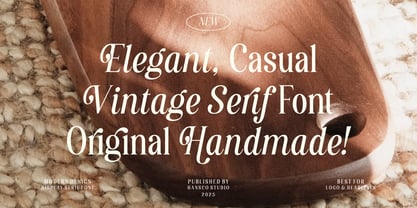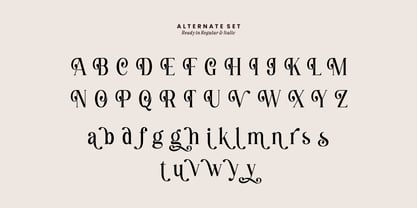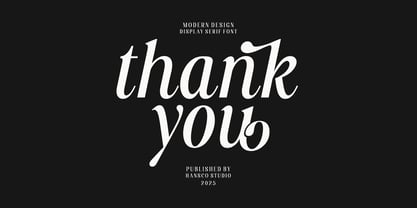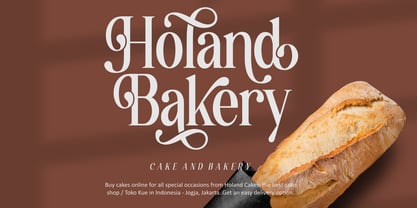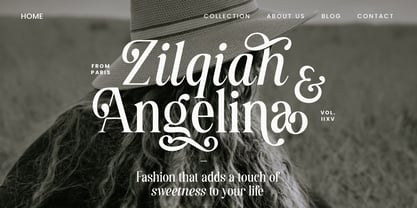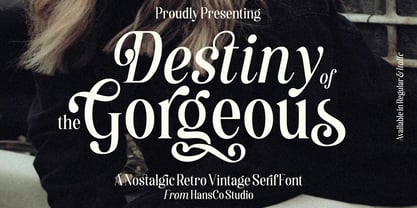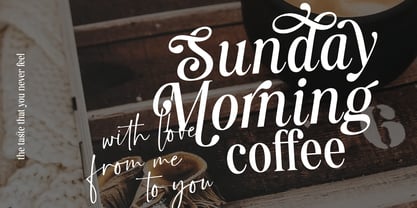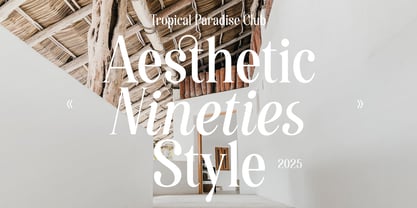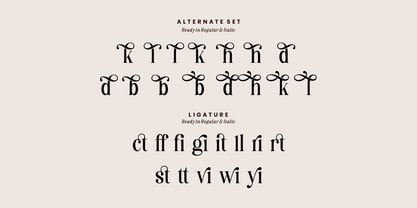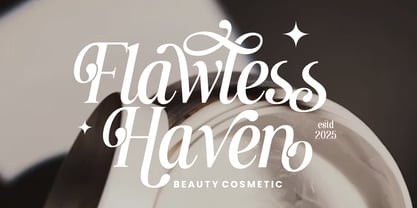
Destiny Gorgeous
von HansCo
Die Schriftfamilie Destiny Gorgeous wurde von Burhan Afif entworfen und von HansCo veröffentlicht. Destiny Gorgeous enthält 2 Stile und Familienpaketoptionen. Mehr über diese Familie
Destiny Gorgeous is a beautiful retro serif font. It features an incredibly feminine and retro style, while still keeping a elegant feel. Destiny Gorgeous is the perfect font for making designs project especially for those of you who want something unique with a smooth swash style in every characters on your logo or brand. It’s great for branding, logo designs, logotype, craft, posters, packaging and much more. You will also get several alternative characters on lowercase, uppercase and ligature in them, so that it will provide many great choices in your design. This font comes with a full uppercase, lowercase, numbers, punctuation and multilingual support.
• Ligature & Alternate character
Designer: Burhan Afif
Foundry: HansCo